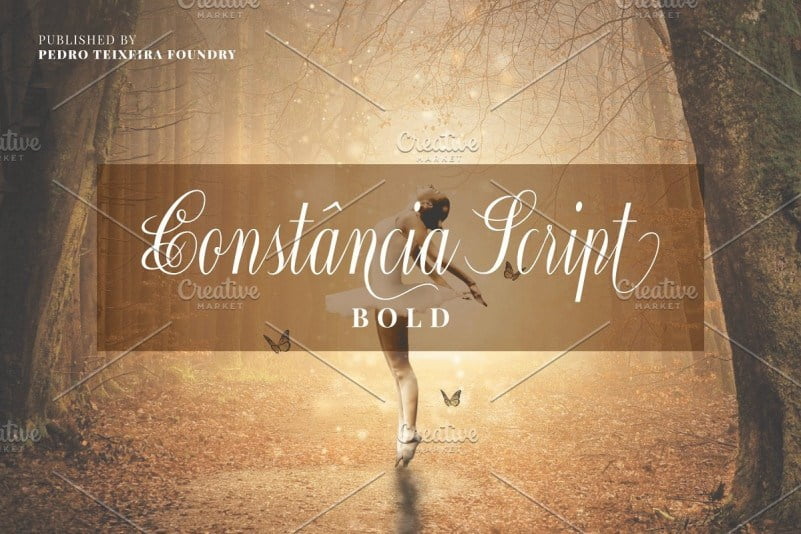
Constancia Calligraphy Script Font
Constância Calligraphy Script Bold, Constância Script, classic and elegant calligraphy. This unique, stylish and legible script is handy for logo, poster, headlines, invitations, cards and all display needs.
This is perfect for invitations, signatures, blogs, social media, business cards, product brands.Wetting has Stylistic standard, Stylistic Alternate, Stylistic Sets. and includes uppercase and lowercase letters, numbers and punctuation marks.